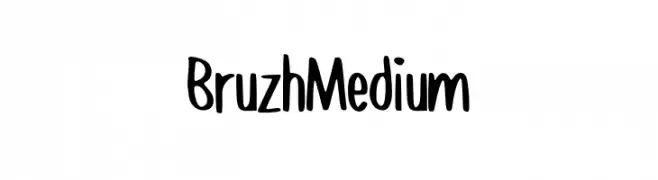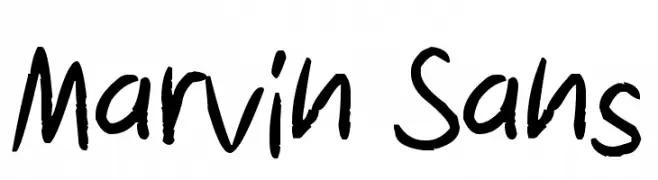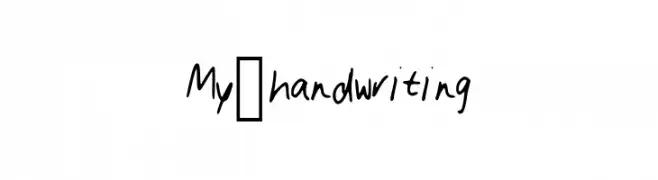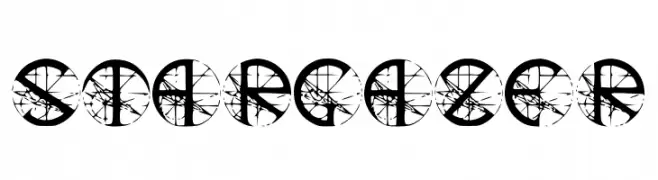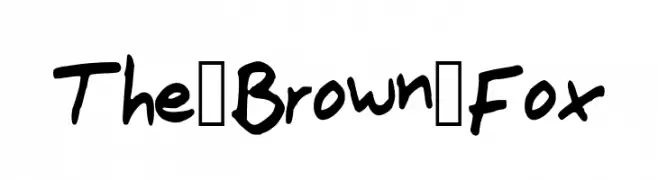
A playful, handwritten font with rounded, consistent strokes.
A playful, handwritten font with a casual and organic style.
A bold, playful font with a hand-drawn, comic-style appearance.
A playful, handwritten font with bold, rounded strokes and a casual style.
A casual, handwritten font with a playful and approachable style.
A casual, handwritten font with a playful and informal style.
A bold, hand-drawn 3D font with a playful, cartoonish style.
A bold, dynamic script font with fluid, energetic strokes and a hand-drawn appearance.
A modern, decorative font with characters enclosed in circles and intersected by abstract lines.
A bold, playful script font with dynamic, flowing letterforms.